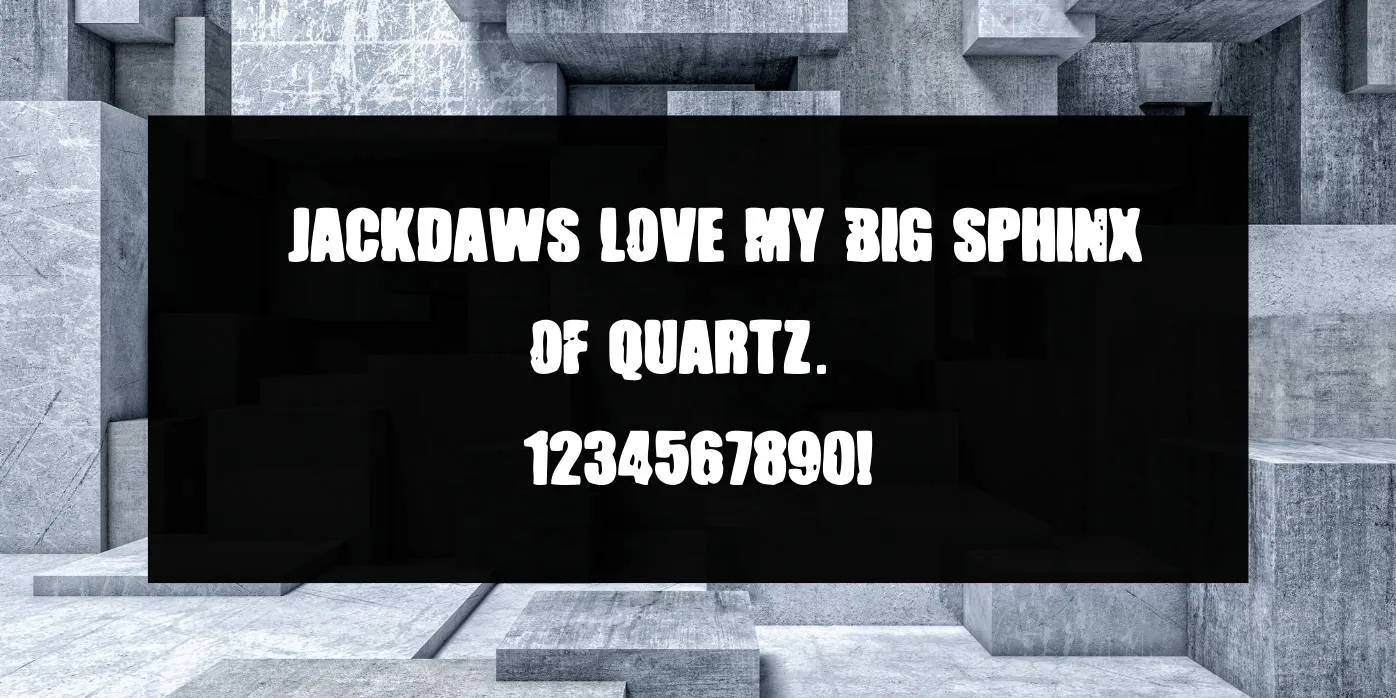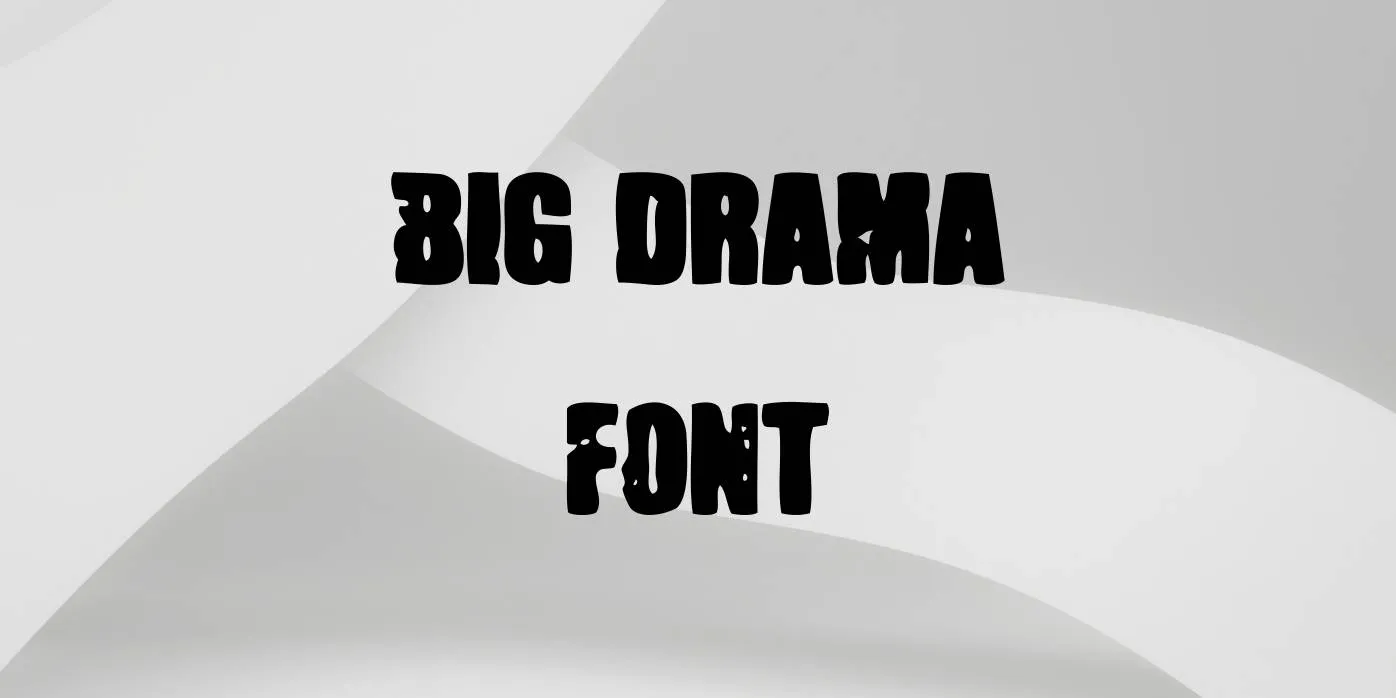
Big Drama Font
Big Drama Font is a popular fancy font that has been used by many people for a variety of purposes. The font has a unique style that makes it stand out from other fonts, and it is also very easy to read. This Font was created by a company called Woodcutter, and it was first released in the early 1990s. The font quickly became popular among designers and artists, and it is still widely used today.